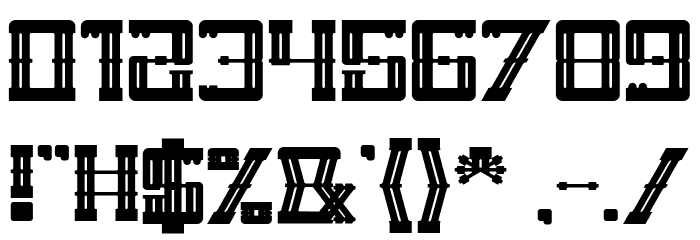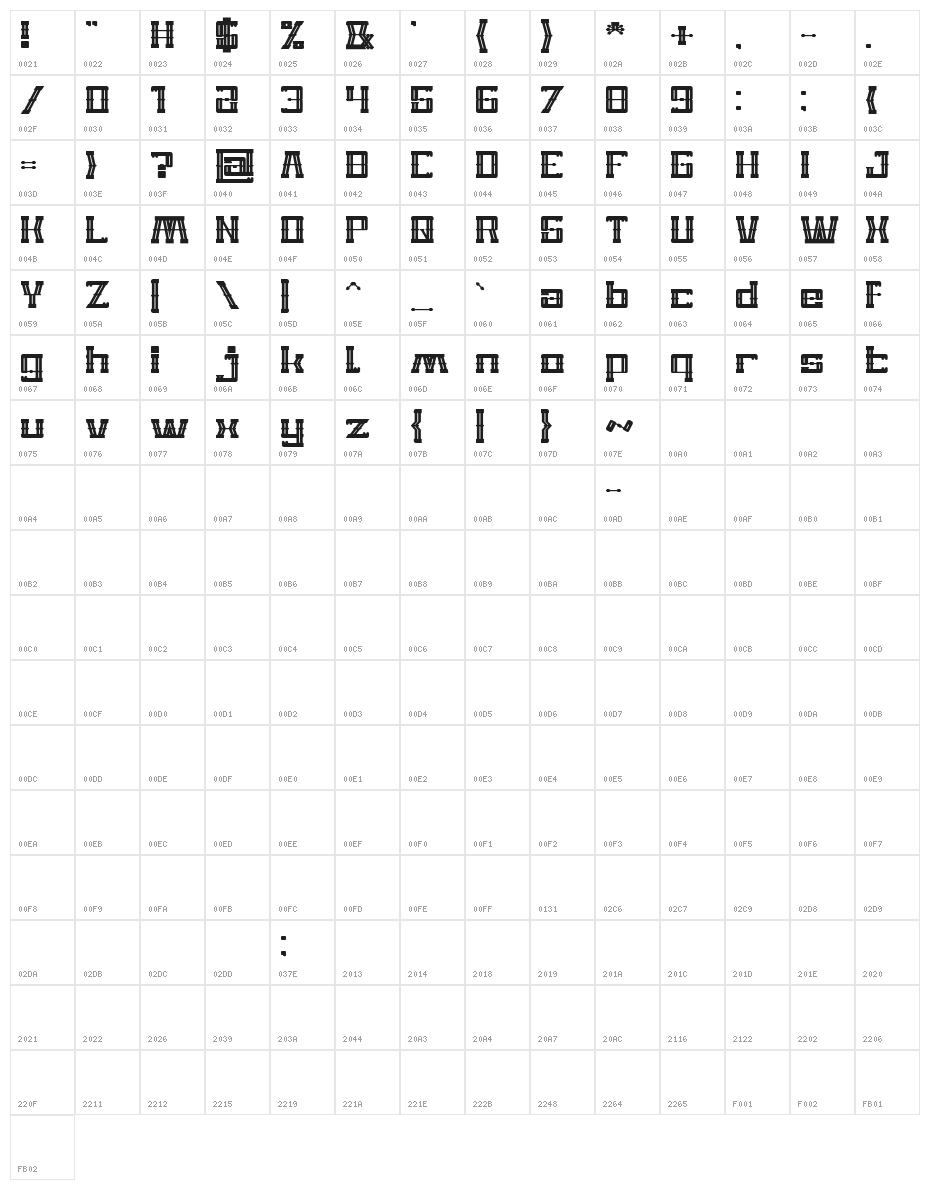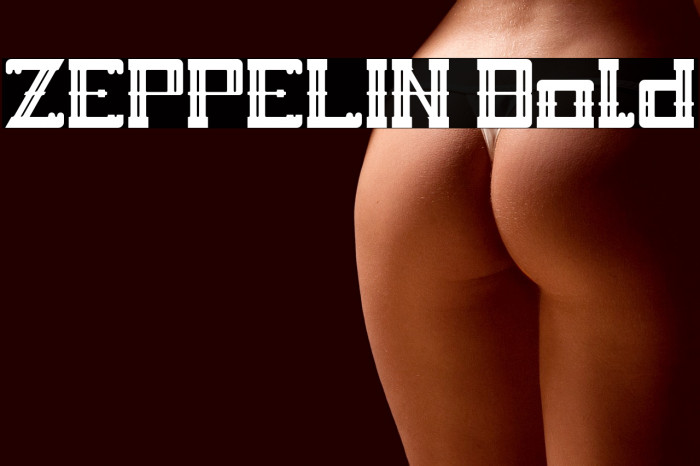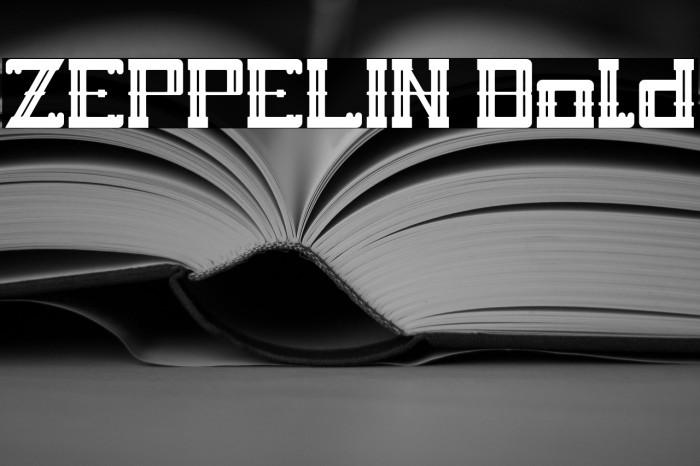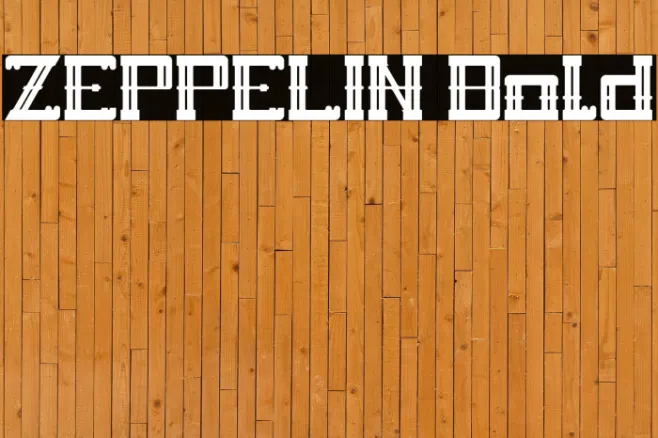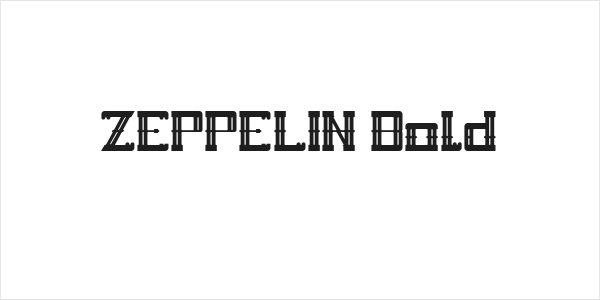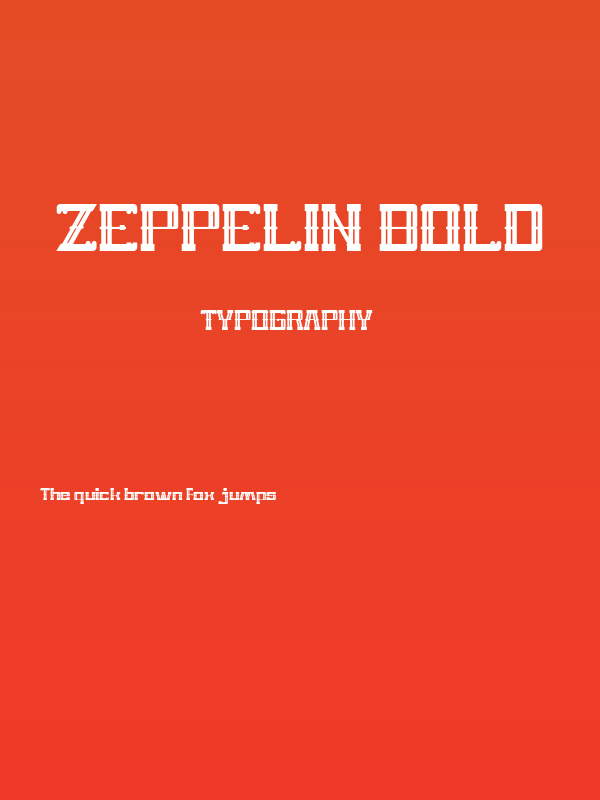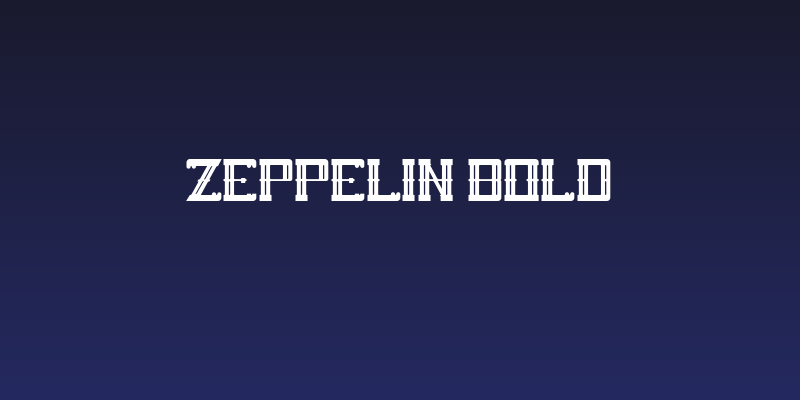
ZEPPELIN Bold Font
ZEPPELIN Bold Description
This font features a bold and industrial design, characterized by its strong geometric shapes and mechanical aesthetic. The uppercase and lowercase letters are constructed with a consistent width, giving it a monospaced appearance. The strokes are thick and uniform, with a high contrast between the filled and open spaces within each character. The font's style is reminiscent of industrial and mechanical themes, making it suitable for projects that require a bold and striking visual impact. The numerals and special characters maintain the same robust and structured design, ensuring consistency across all elements.
| Overall Style | Industrial, Mechanical |
| Proposed Projects | Ideal for branding, posters, and any design requiring a strong industrial theme. |